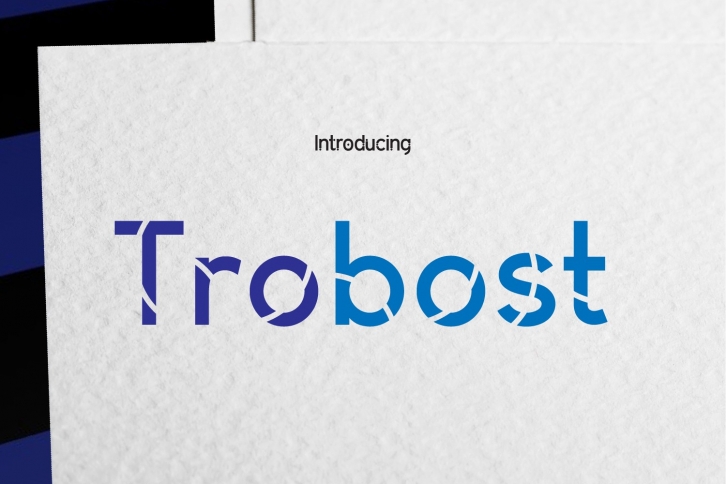
Trobost is a beautiful font that was designed by daonlyaan. It's a great choice for designers and creatives who need such a font. It was released on February 7, 2019 and the file size is 20.89 MB. Trobost may give a more youthful, expressive and casual look to your project. It is a very beautiful, refined, elegant, and high-quality font.